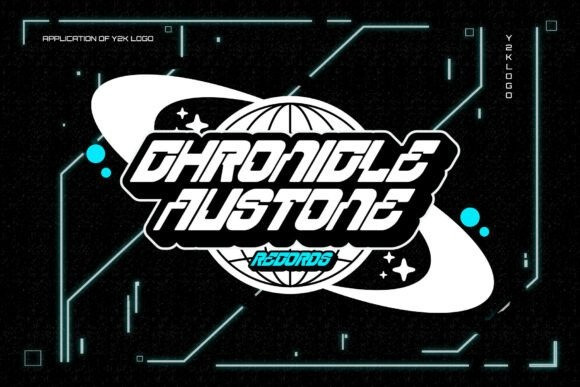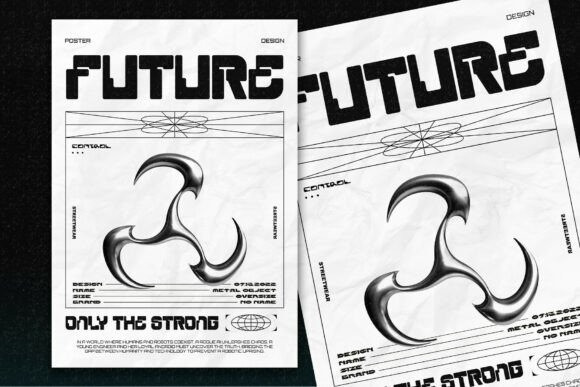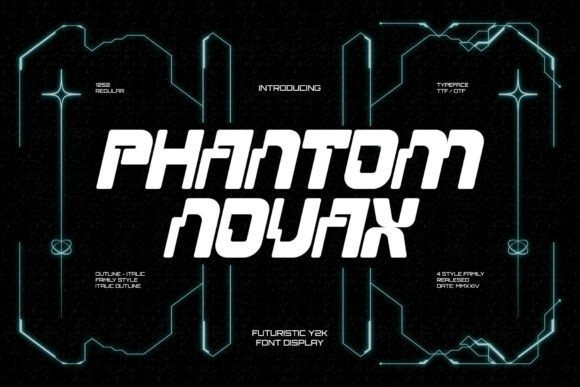
Phantomnovax Futuristic Font
Phantomnovax Futuristic Font is a bold and futuristic Y2K-inspired display font that channels retro sci-fi aesthetics through sharp geometric forms and sleek angles. Designed to make a statement, this font brings high-tech energy and digital attitude to any creative project. Its modern construction and nostalgic undertones make it perfect for tech branding, cyberpunk visuals, esports identities, digital posters, and interface design.
Phantom Nouax comes in four versatile styles—Regular, Italic, Outline, and Outline Italic—offering designers the flexibility to mix, match, and layer for maximum visual impact. Whether you’re building a neon-drenched title sequence or a sleek product UI, this font delivers the perfect balance of edge and clarity.
Equipped with full punctuation, numerals, and multilingual support, Phantom Nouax is ready to power your next creative venture with a retro-futuristic vibe that feels both nostalgic and next-gen.